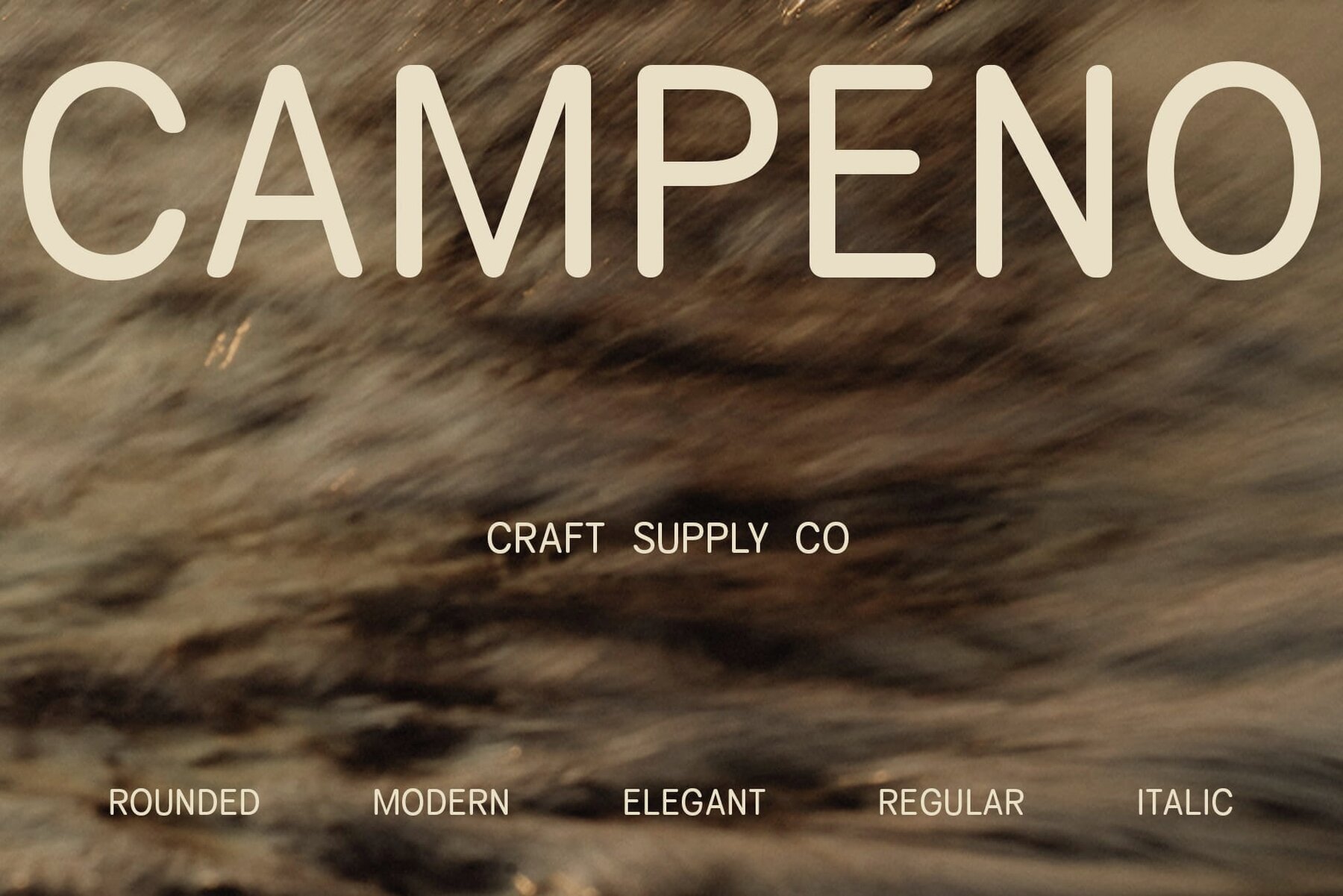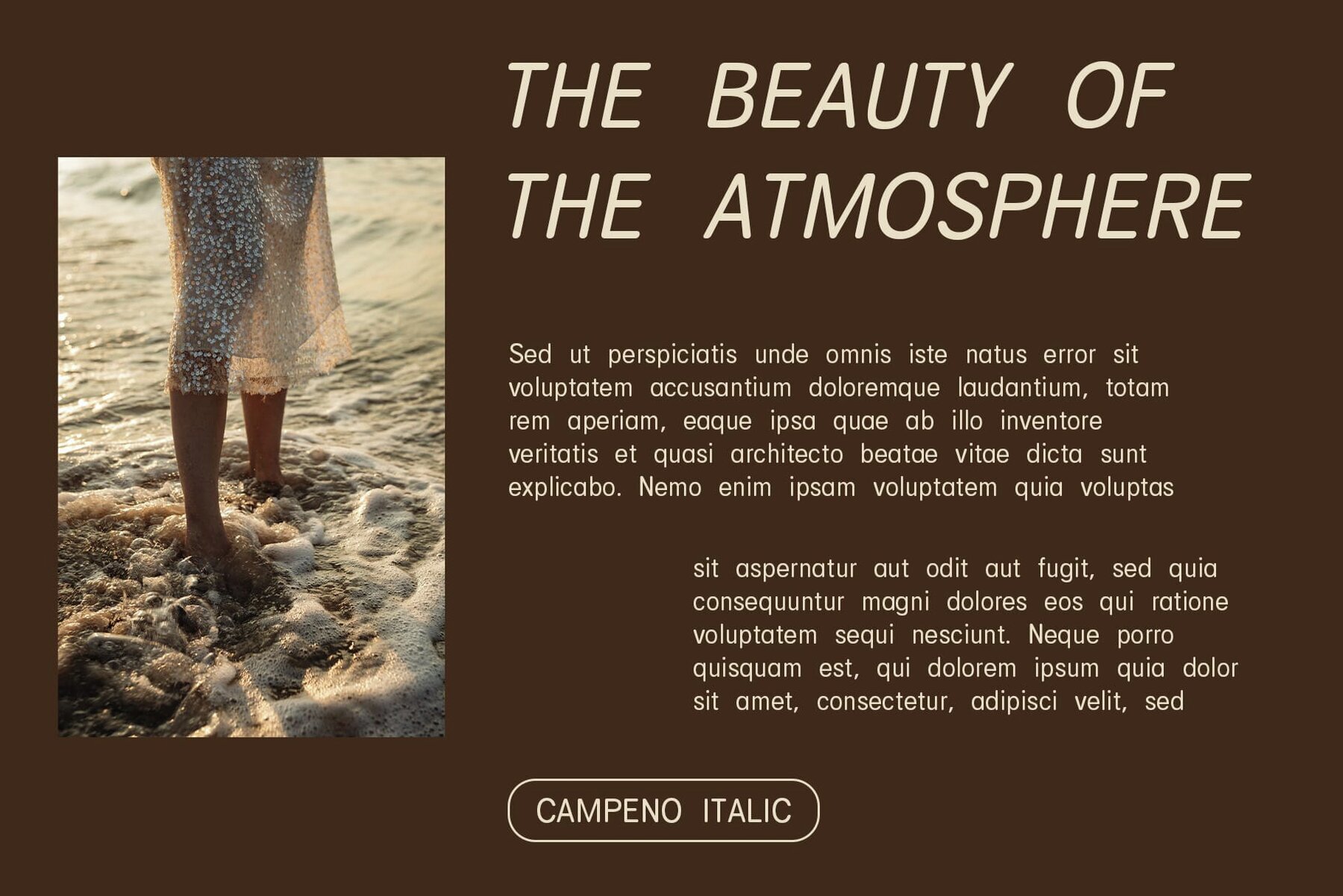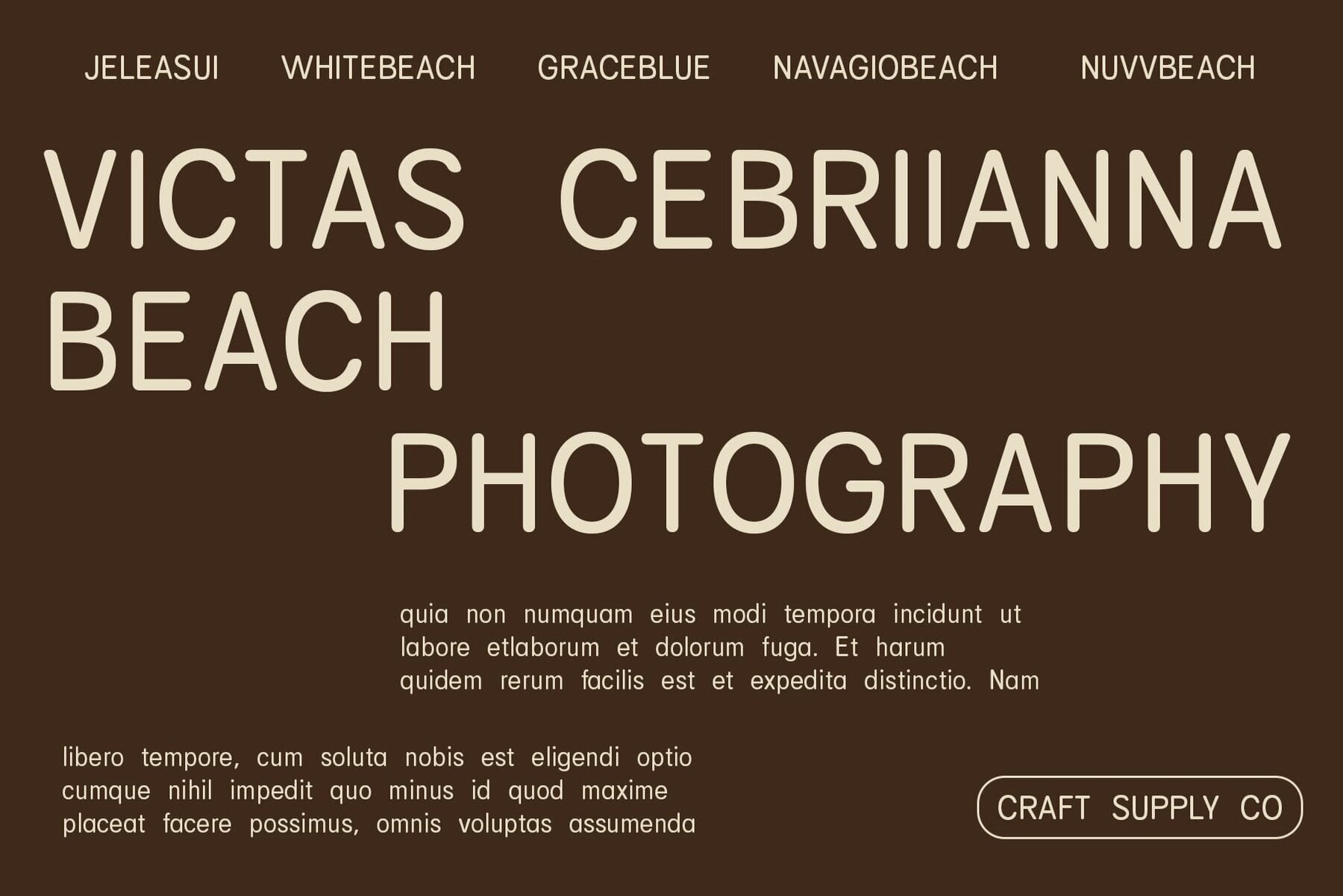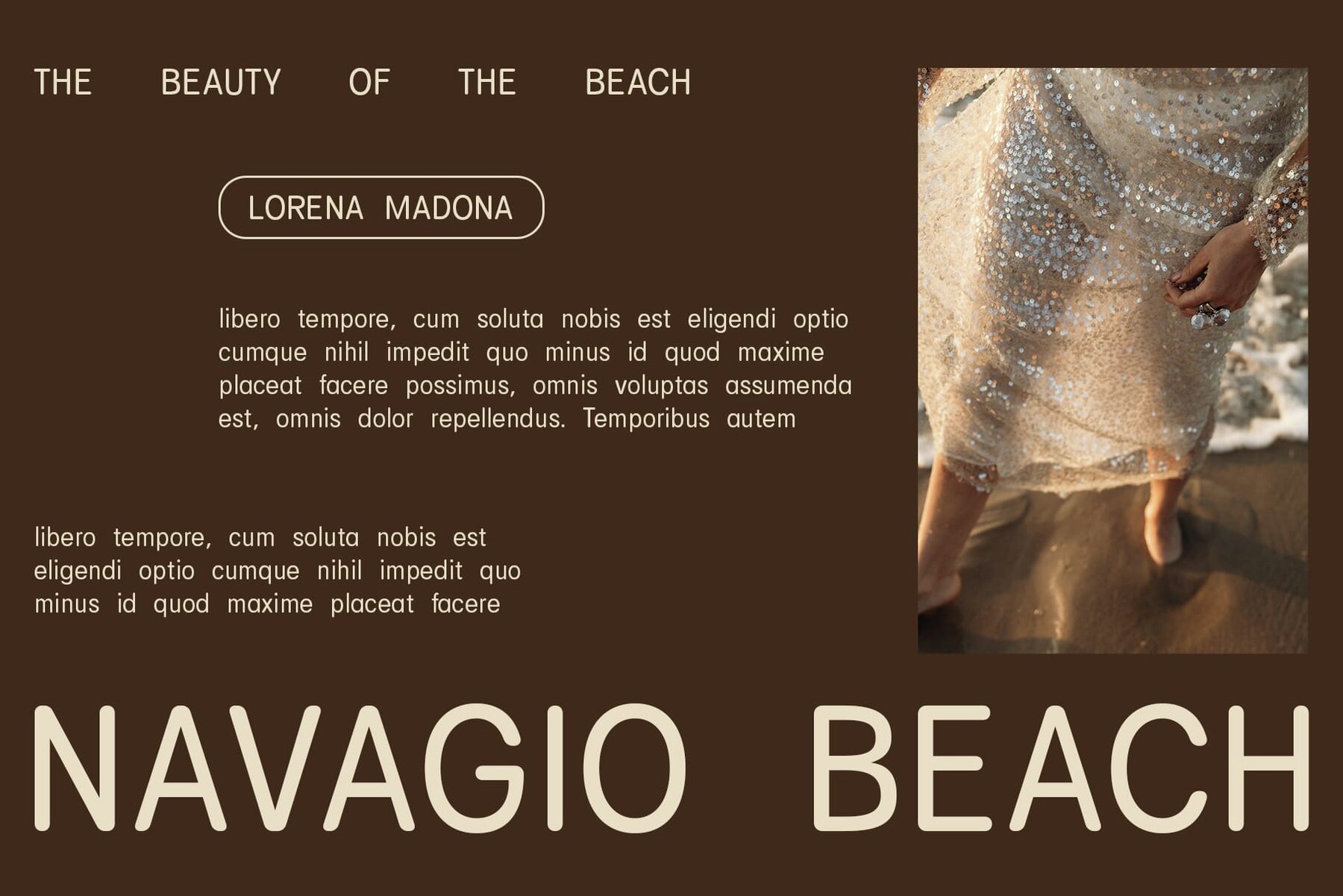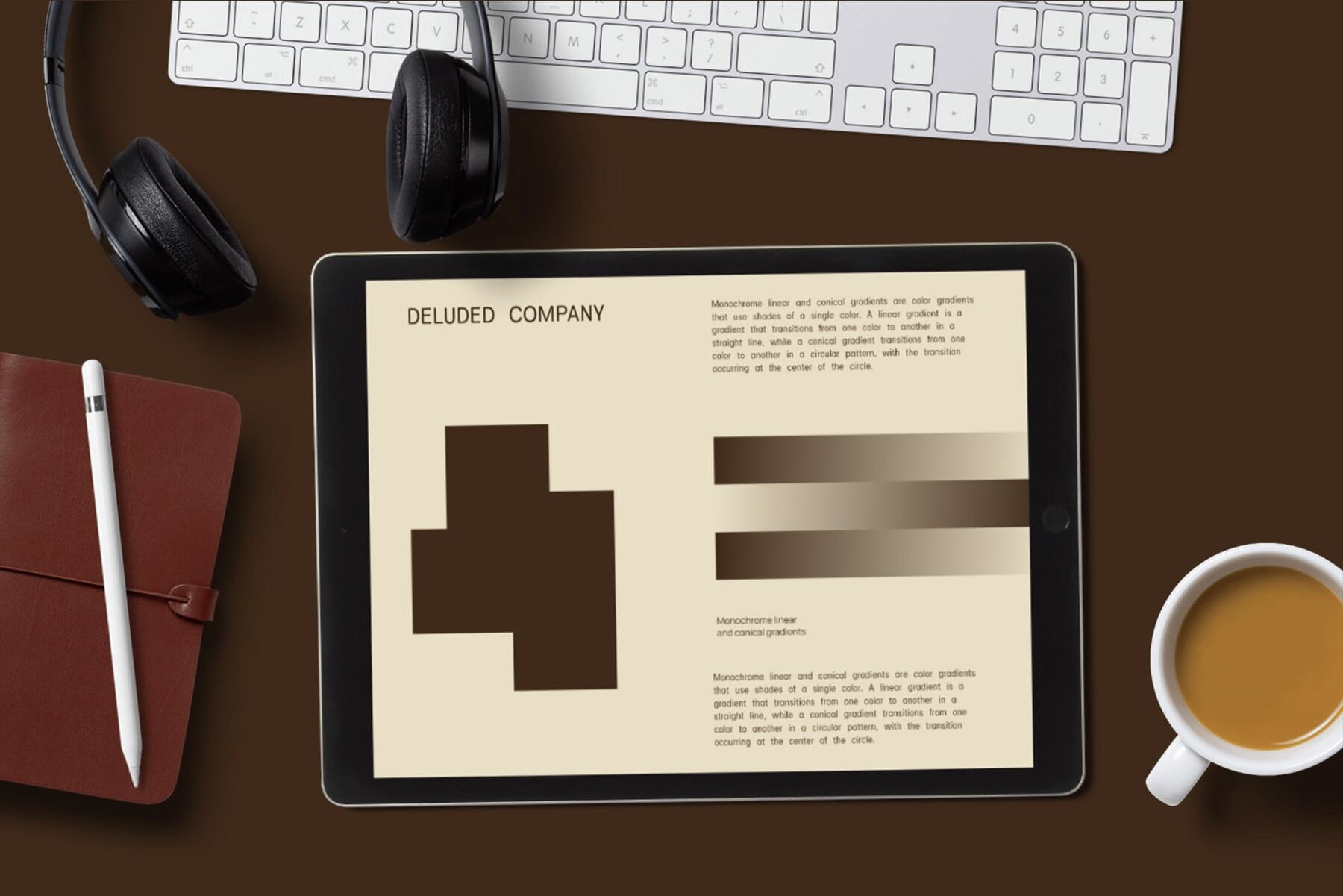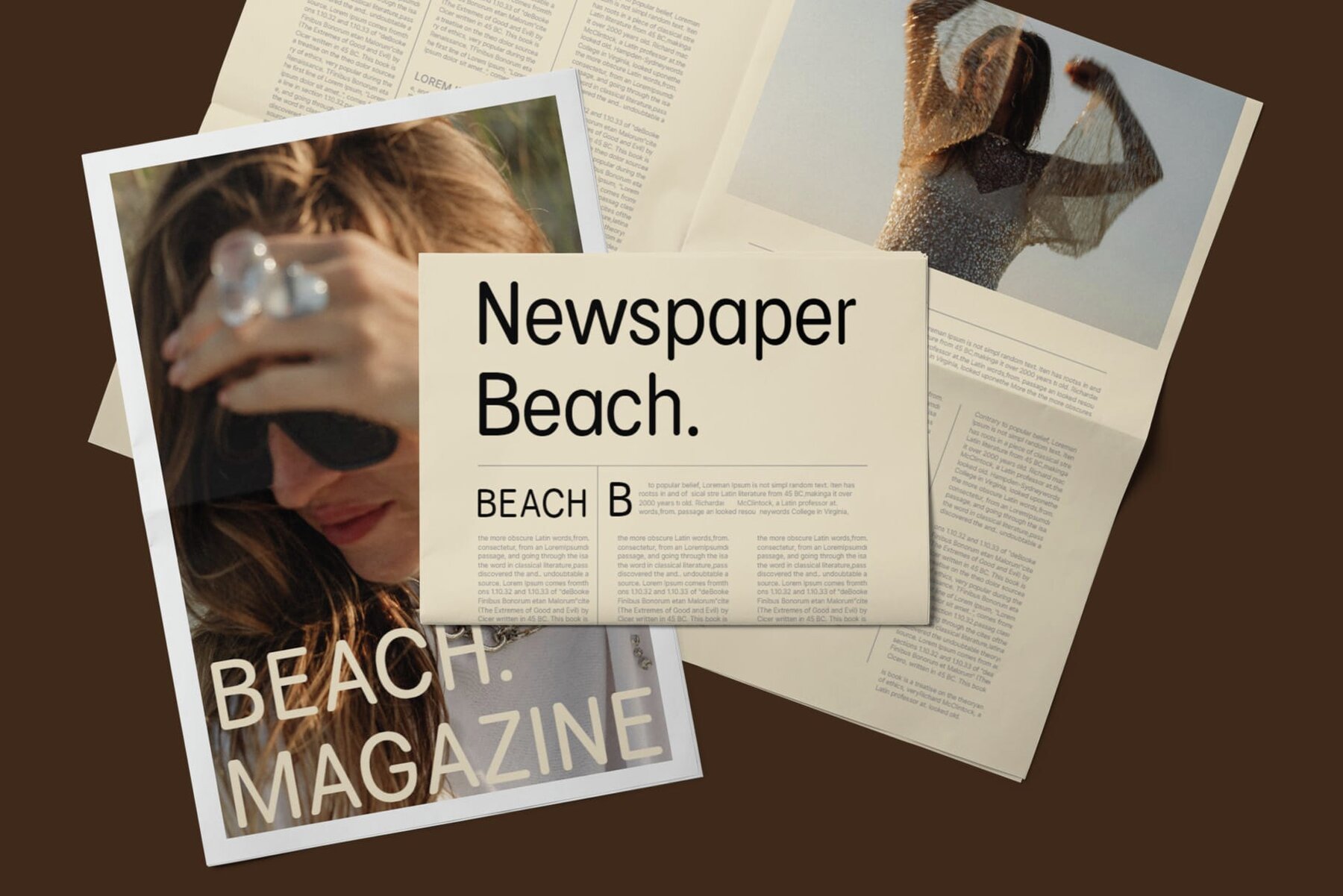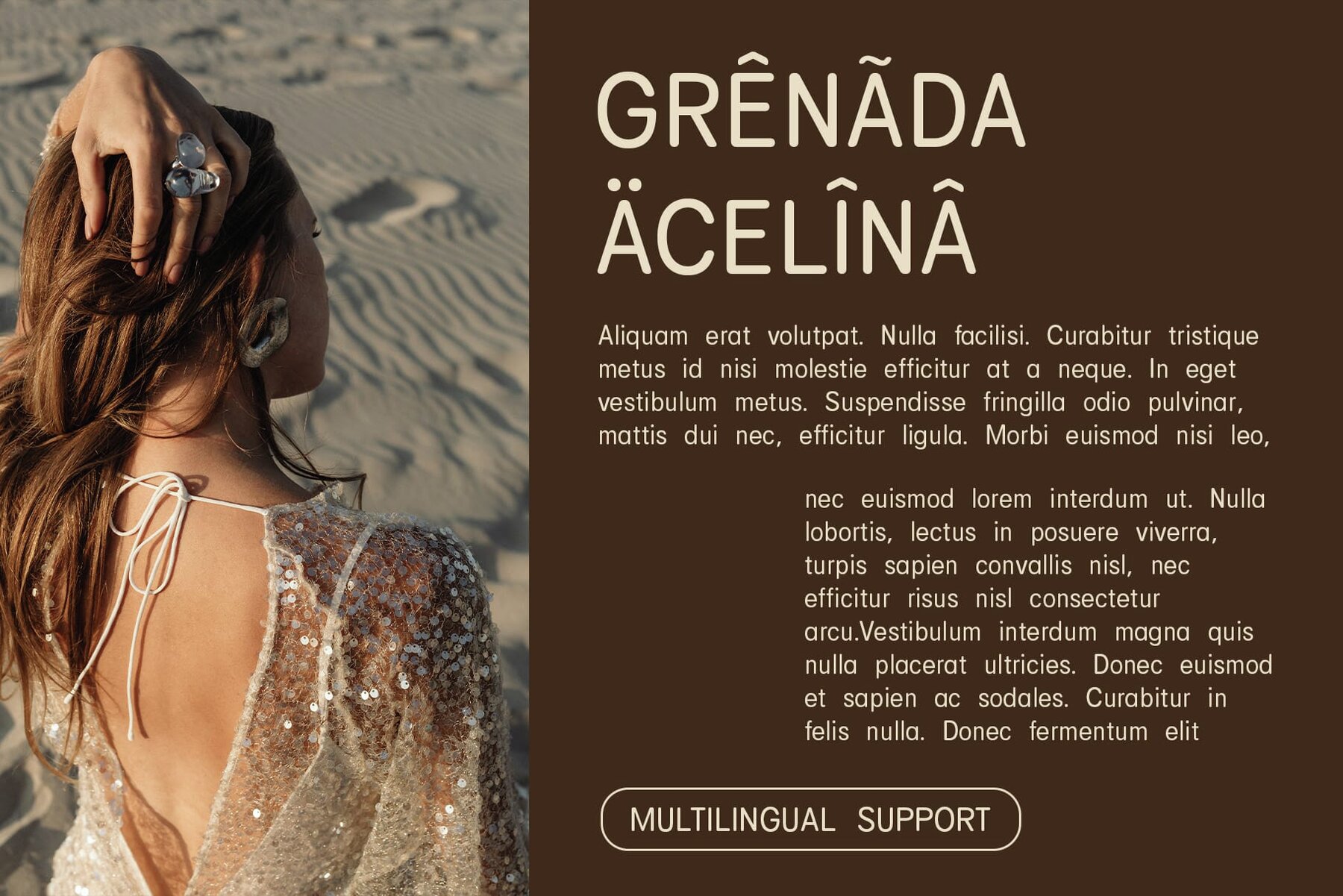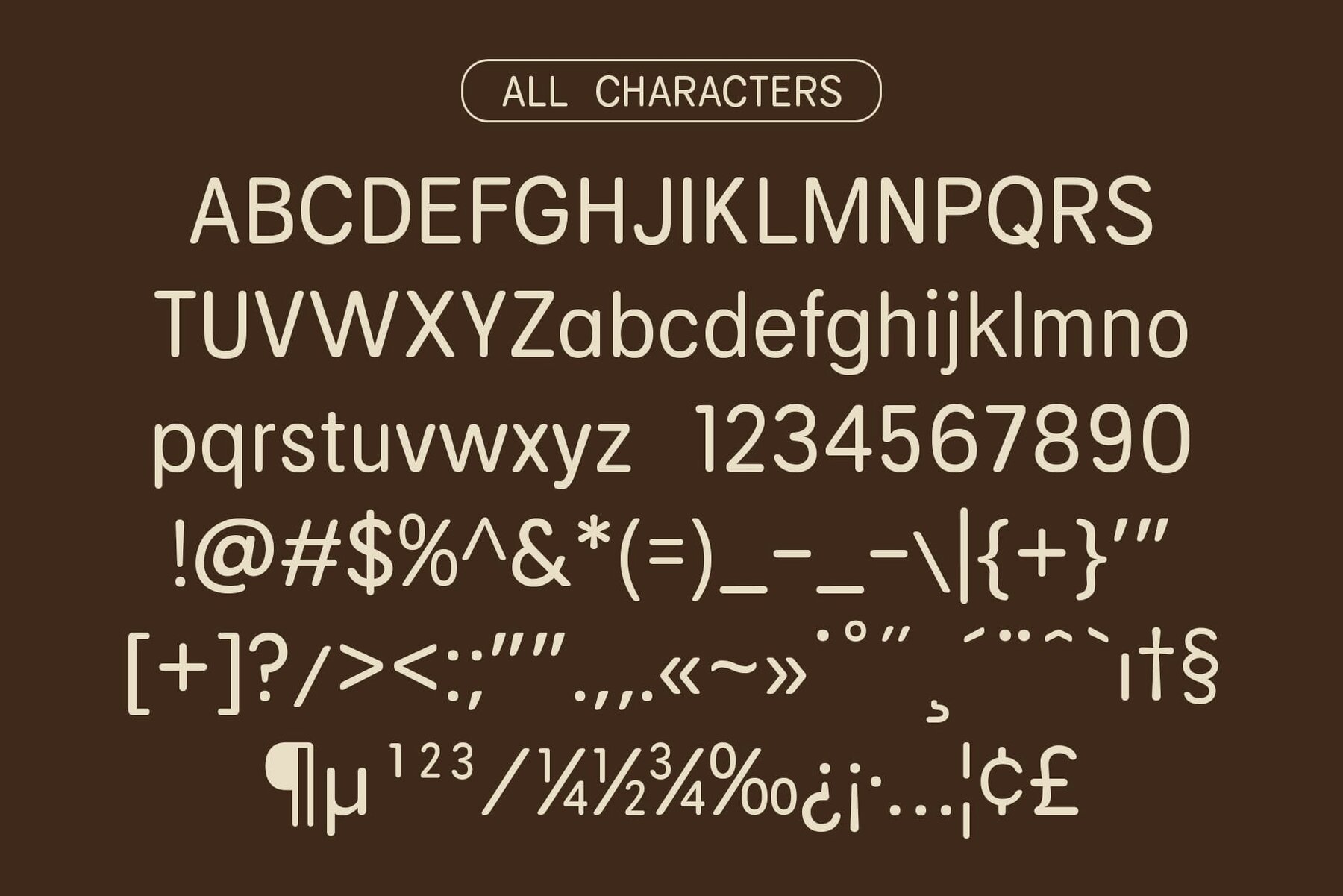
Campeno Rounded Font
Campeno Rounded is a sans serif typeface characterized by low contrast and rounded stem endings, providing a welcoming and approachable vibe for your projects. The low-contrast design of Campeno Rounded offers a gentle visual experience, ensuring readability and comfort across diverse applications. The rounded endings of the font's stems add a soft and friendly touch to each character, enhancing its warmth and approachability. Fostering a sense of friendliness and approachability, Campeno Rounded is perfect for conveying warmth and sincerity in both digital and print media. This sans serif font stands out by prioritizing friendliness and comfort. With low contrast and rounded stem endings, it creates a welcoming atmosphere in any design project, ensuring your message is conveyed with warmth and sincerity. Campeno Rounded can be used without the need for specialized software. If you have any inquiries or need assistance, please feel free to contact us. We appreciate your support in enhancing your creative projects! Best regards, Craft Supply Co.Campeno Rounded: A Friendly Sans Serif
Warm and Inviting Design
Rounded Stem Endings
Ideal for Friendly Communication
Approachable and Comfortable